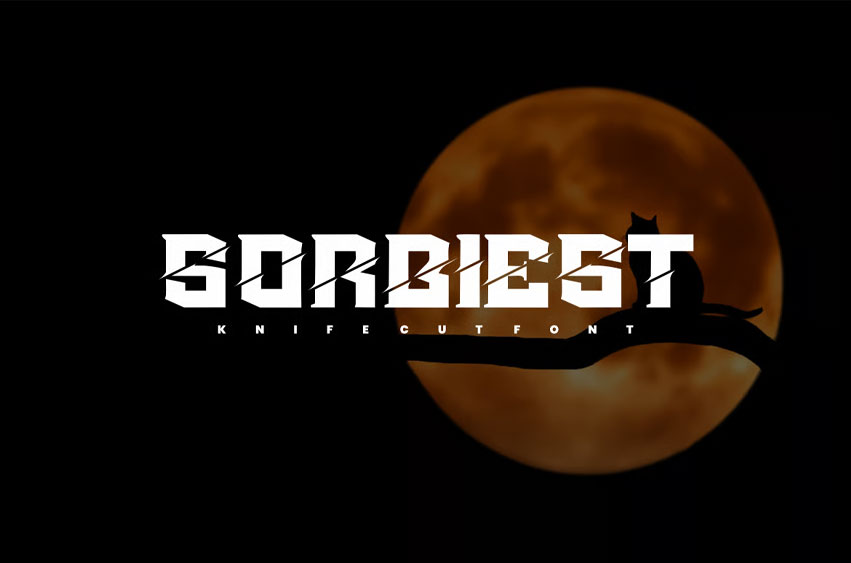
Sorbiest Font
Sorbiest Font is an simple and modern knife cut font.
So perfect for you who needs a typeface for logo designs, magazine, social media, brochure, and many more.